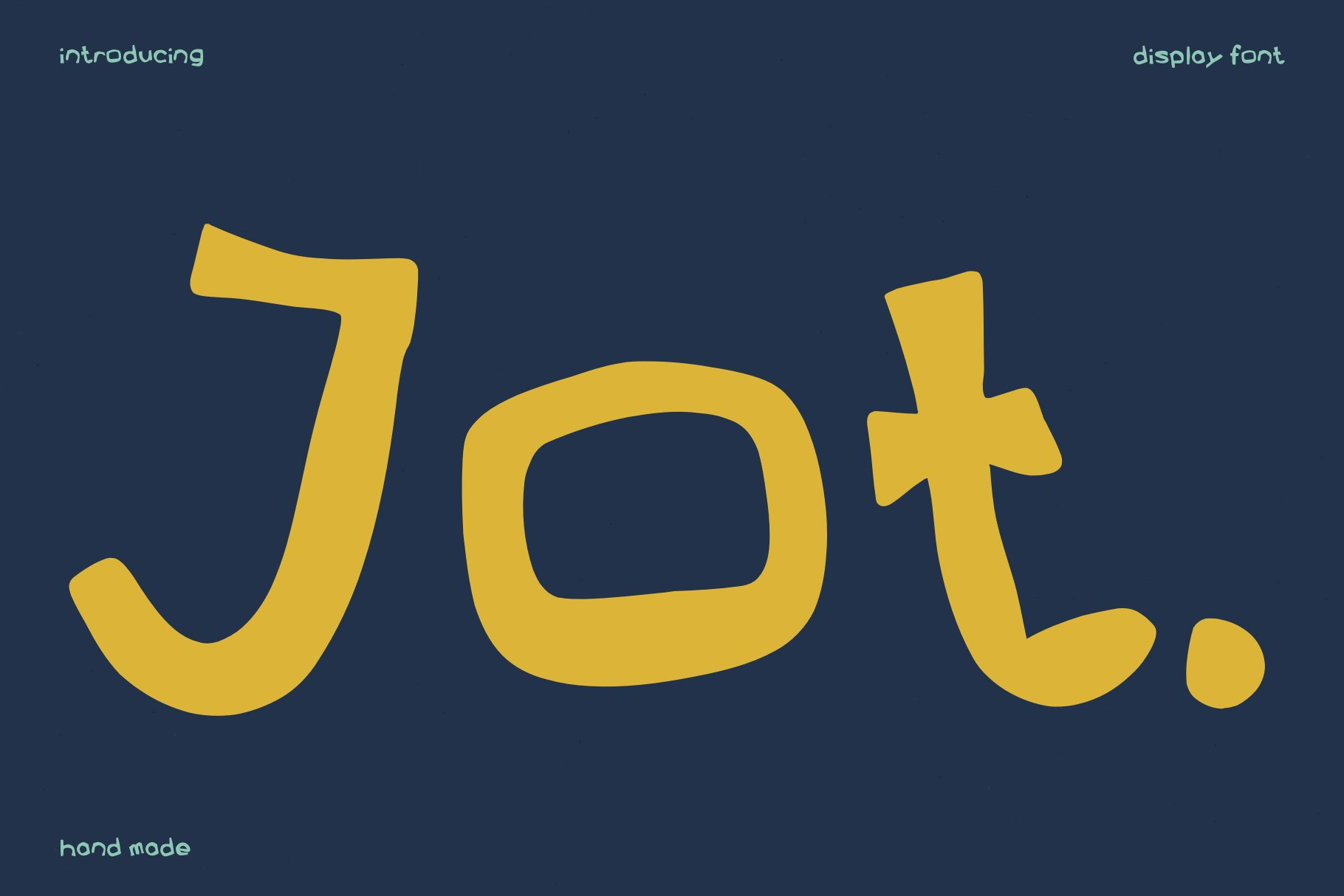
Jot — a Hand-Made Display Font
Jot — a Hand Made Display Font
Jot is a hand-drawn marker-style display font built for brands with something to say. Chunky, honest, and a little imperfect — it brings warmth and personality to any design that needs a human touch. Perfect for coffee labels, indie merch, editorial headlines, packaging, posters, and small-batch branding.
WHY YOU'LL LOVE JOT
- Hand-made marker aesthetic with authentic imperfections
- Chunky, rounded letterforms that stay readable at any size
- Works beautifully on craft paper, dark labels, and loud posters
- Pairs easily with clean sans-serifs for editorial layouts
PERFECT FOR
- Logos & wordmarks
- Coffee, food & drink packaging
- Product labels for small-batch brands
- Editorial headlines & magazine covers
- Album art, vinyl sleeves, music branding
- Event posters & flyers
- Café and restaurant menus
- Apparel, merch & streetwear
- Greeting cards & stationery
- Social media graphics